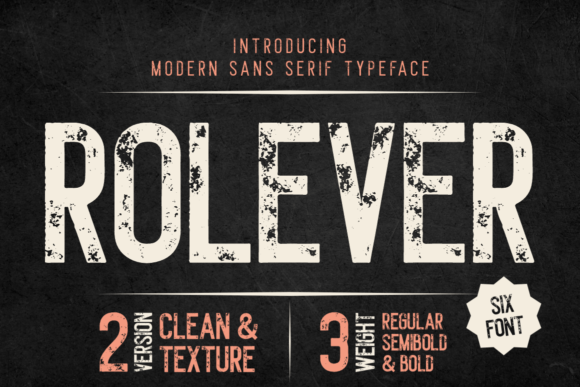
Introducing Rolever Font - the ultimate choice for elevating your designs and captivating your audience. This modern sans serif font, created by putracetol, is the secret weapon you need to make your projects stand out from the crowd.
With its three distinct weights - regular, semibold, and bold - Rolever Font gives you the power to infuse your creations with a wide range of visual impact. Whether you want to make a subtle statement or grab attention with bold typography, this font has got you covered.
But that's not all. Rolever Font offers even more flexibility with its two versions - clean and textured. This means you can tailor your designs to suit your unique preferences and create stunning visuals that truly reflect your brand identity.
Imagine the possibilities. Rolever Font is perfect for a multitude of applications, including posters, logos, titles, branding, printing materials, magazines, books, greeting cards, and invitations. The elegant and modern aesthetic of this font will instantly elevate your designs and leave a lasting impression on your audience.
But what sets Rolever Font apart from the rest? Its contemporary and elegant design elements make it a perfect match for any creative venture. Whether you're designing a poster, creating a logo, styling titles, or working on branding materials, Rolever Font is the tool you need to bring your vision to life.